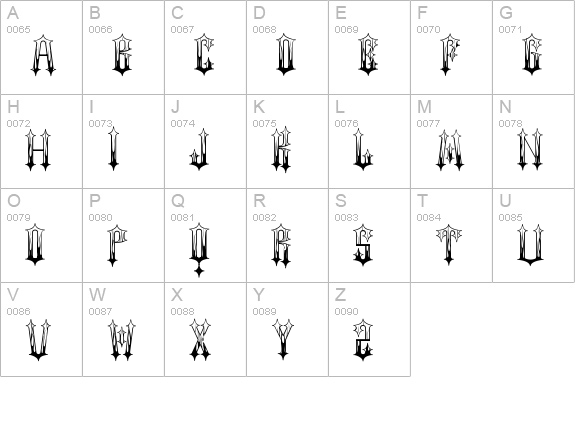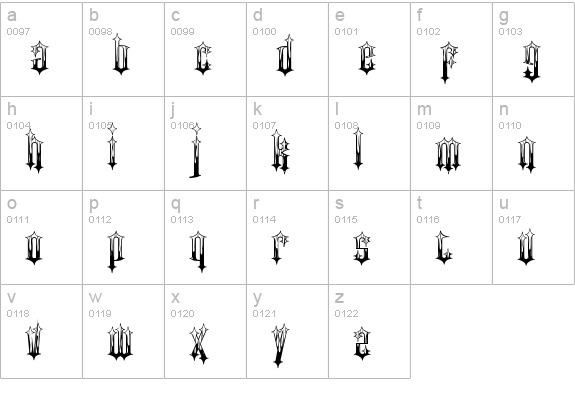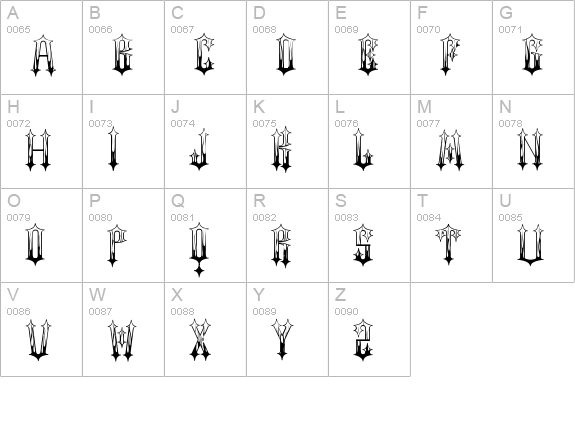
Gothic Flames font is a captivating and mysterious typeface that exudes an aura of dark elegance and gothic charm. Its intricate and ornate design features sharp edges and intricate details that evoke a sense of ancient mystique. This font is perfect for adding a touch of drama and sophistication to your designs, whether it be for invitations, posters, or branding materials. What makes Gothic Flames font even more appealing is that it is available for free download at FontsMarket.com. This means that you can easily access this stunning font and use it in your projects without any cost. Embrace the enchanting allure of Gothic Flames font and let your creativity ignite with its bold and striking presence.